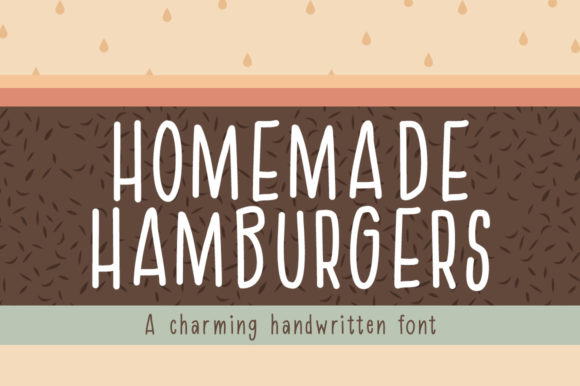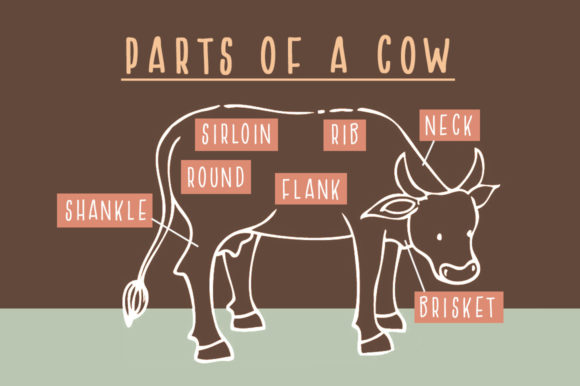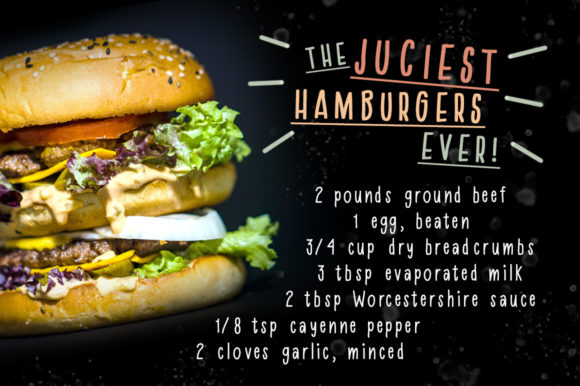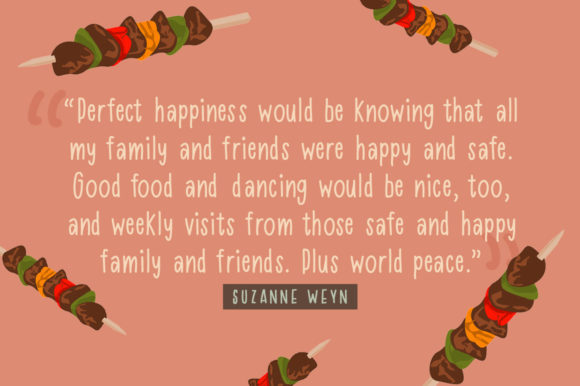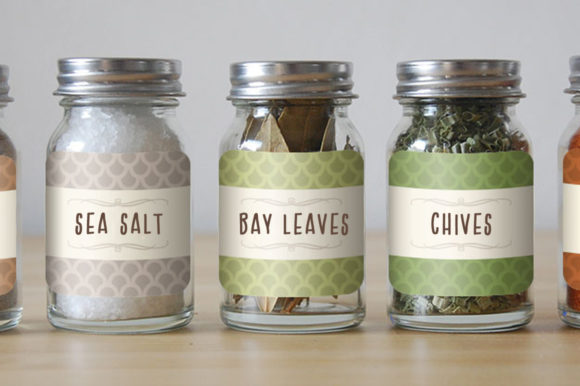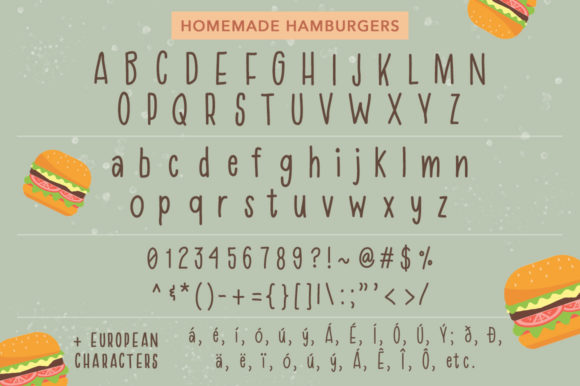
Homemade Hamburgers Font
About Homemade Hamburgers Font
Homemade Hamburgers is a simple, quaint, handwritten font. Perfect for projects that need that homemade, organic vibe, this font simply evokes a taste for simple but sophisticated nostalgia.